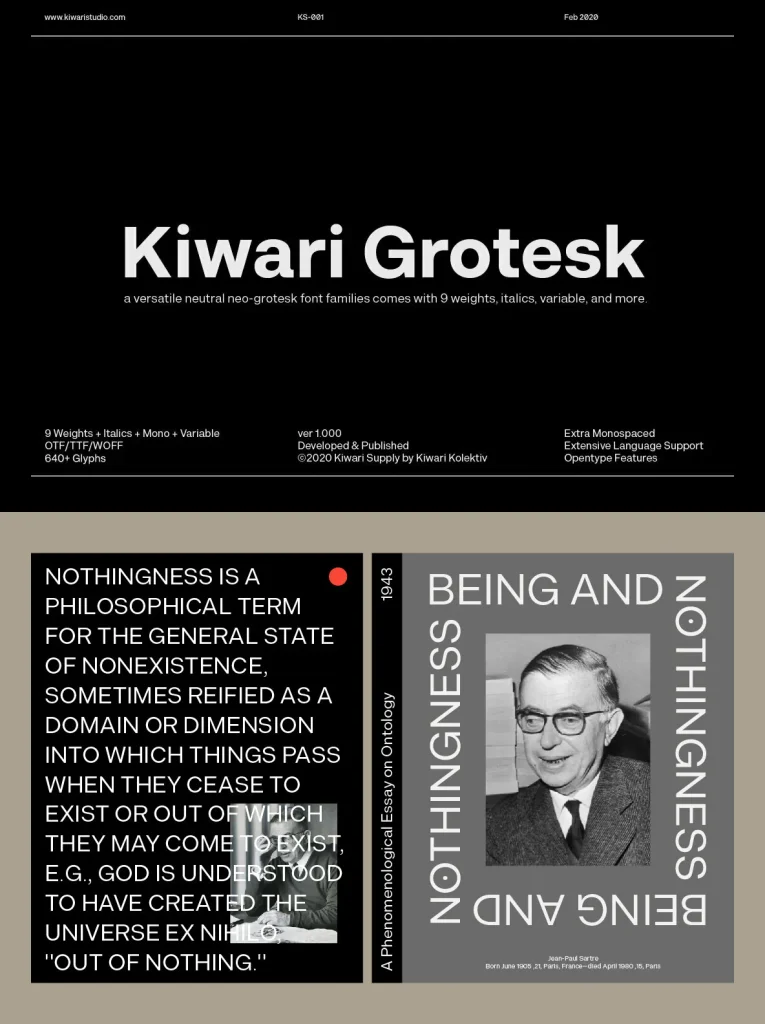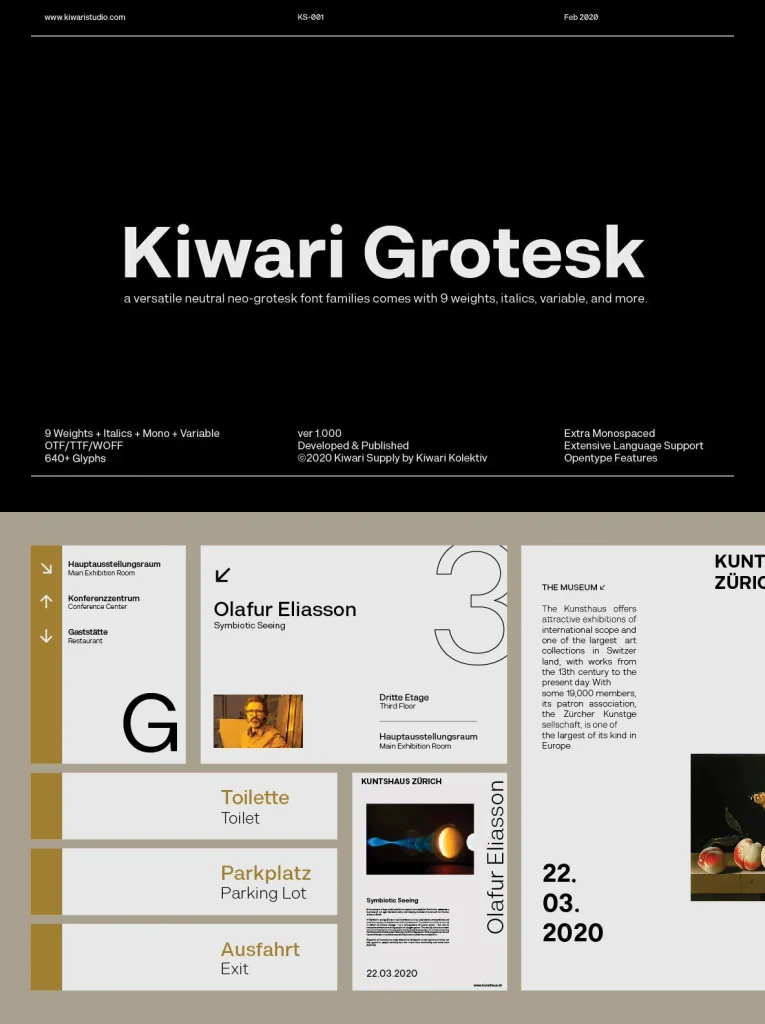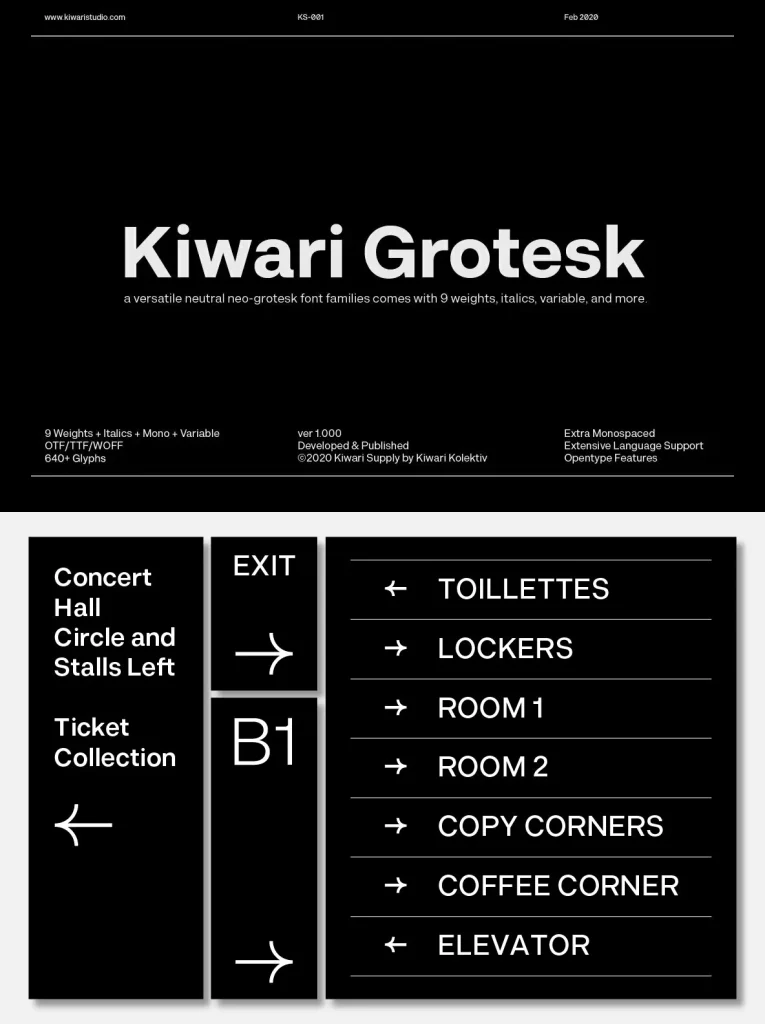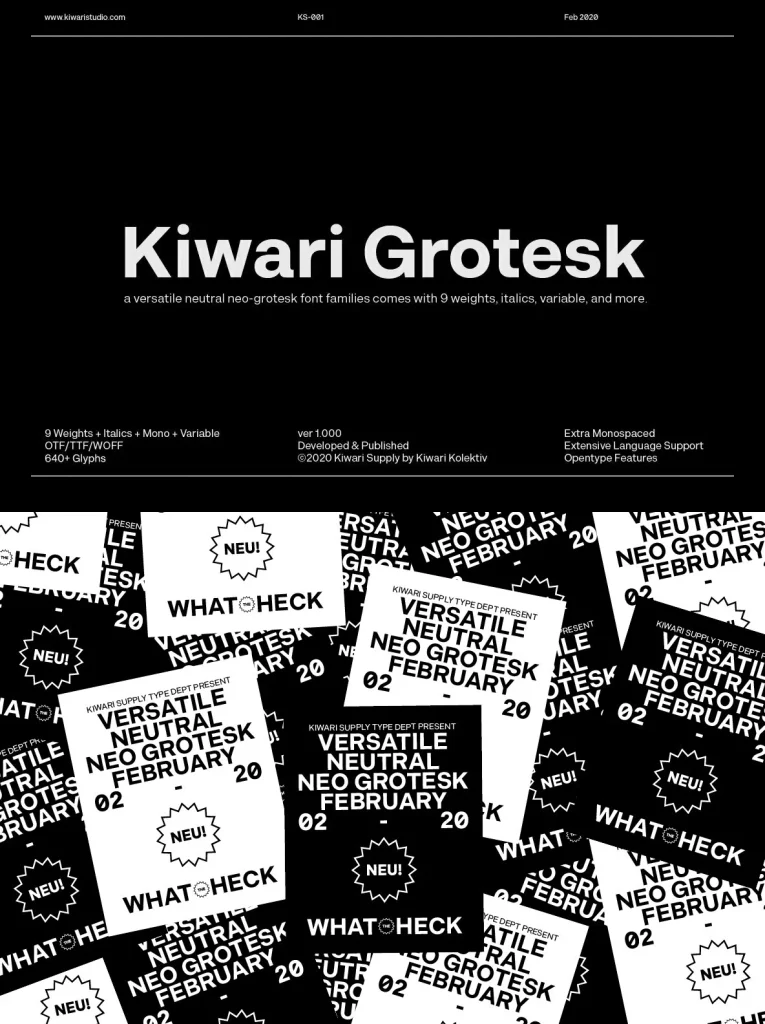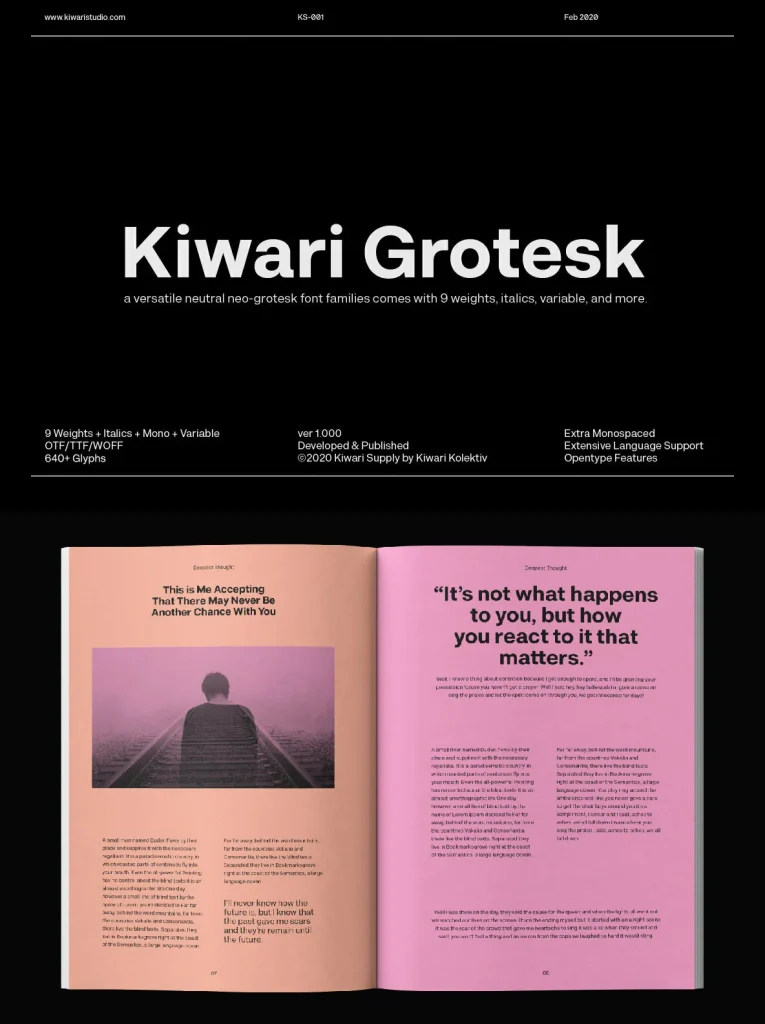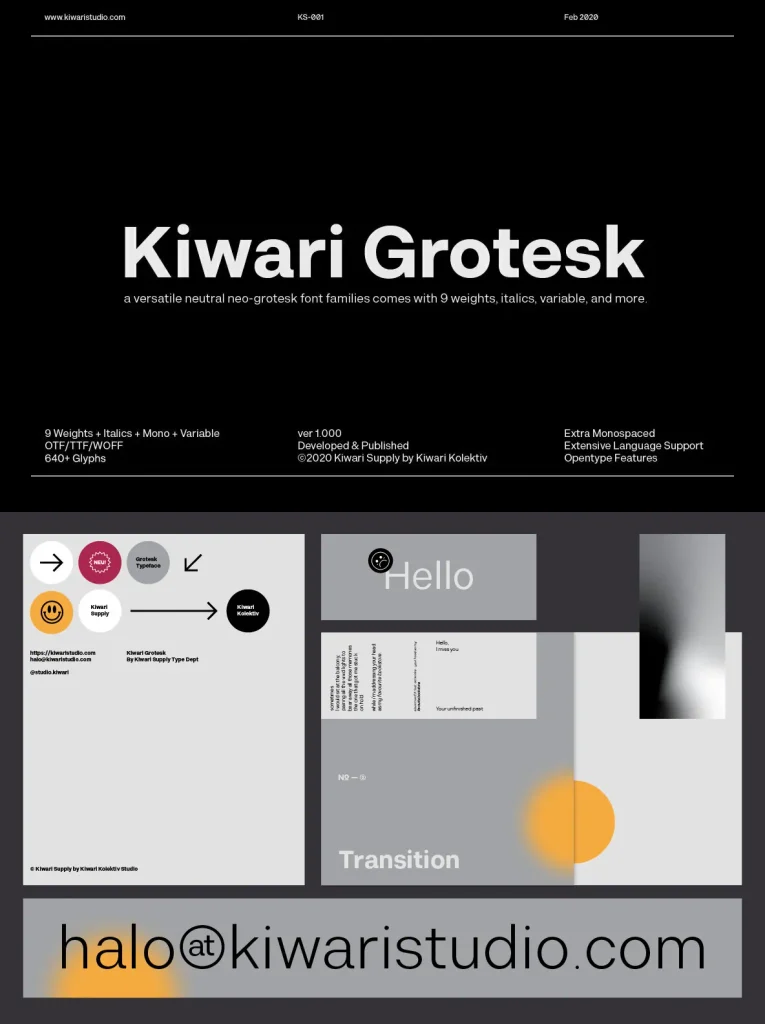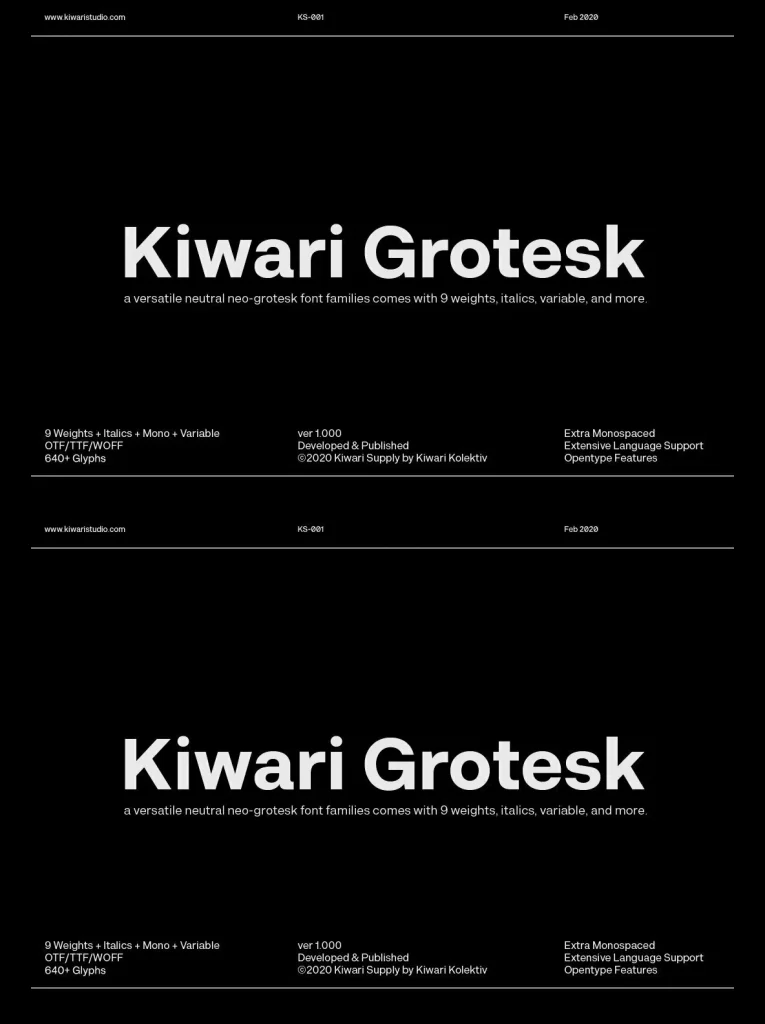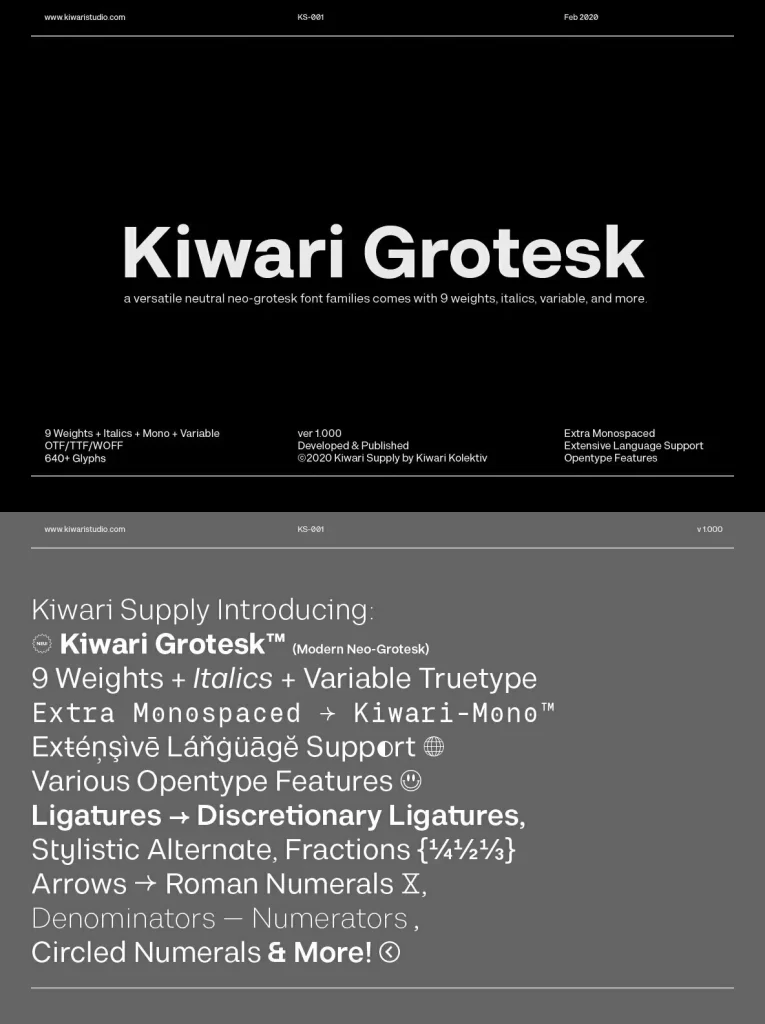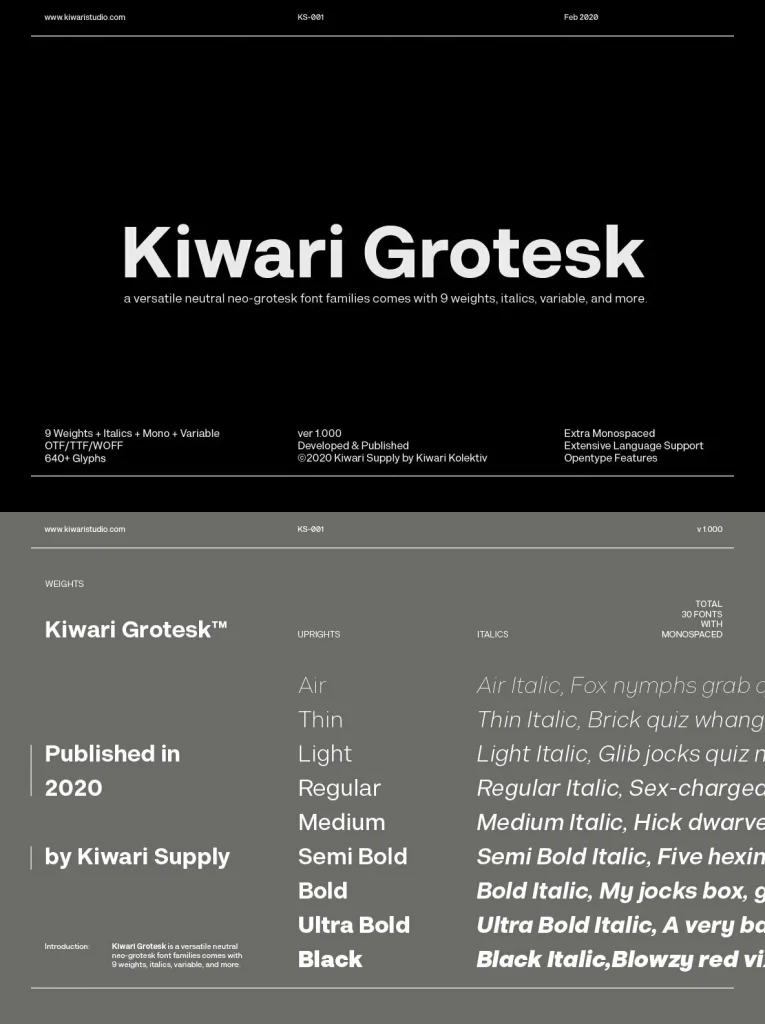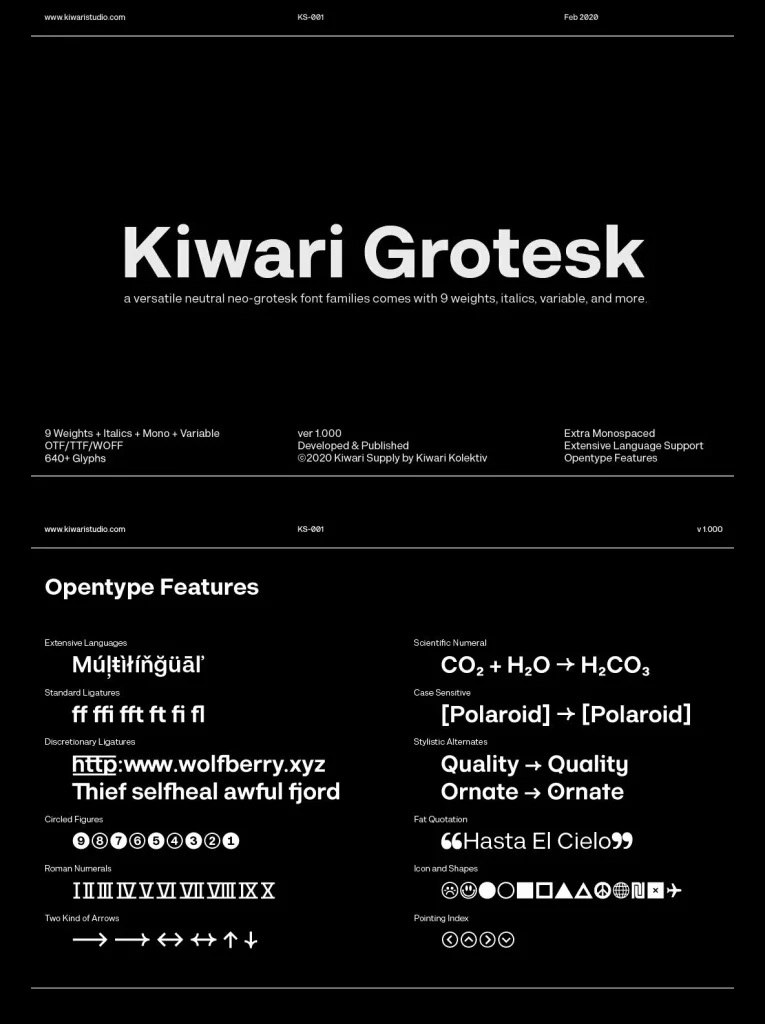
Kiwari Grotesk: A Versatile Grotesque Typeface for Modern Branding
Since its inception in 2019, Kiwari Grotesk has been meticulously designed to cater to various design needs, emphasizing versatility, simplicity, and neutrality. This typeface is ideal for contemporary design and branding, combining legibility with sleek node structure and comfortable optical kerning. Each size maintains Kiwari Grotesk’s versatile and neutral aesthetic.
Features
Extensive Font Family
– Comprises 34 fonts with 12 monospaced variants and stylistic sets from 1 to 10.
Variable TrueType
– Offers adjustable design options for flexible use.
18 Weights
– Ranges from Air to Black Display, including italics.
OpenType Features
– Includes tabular figures, alternate characters, ligatures, discretionary ligatures, fractions, case-sensitive forms, superscripts, and subscripts.
Kiwari Grotesk is well-suited for a broad spectrum of applications, making it an indispensable asset for any designer prioritizing clarity and modern appeal.